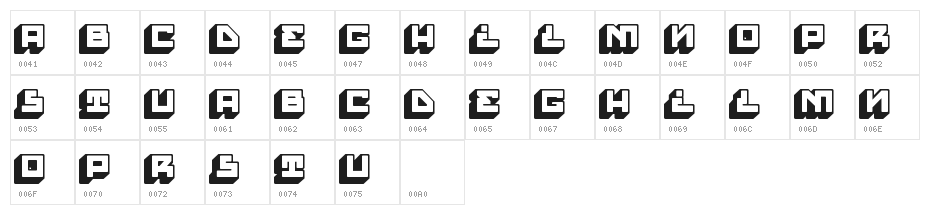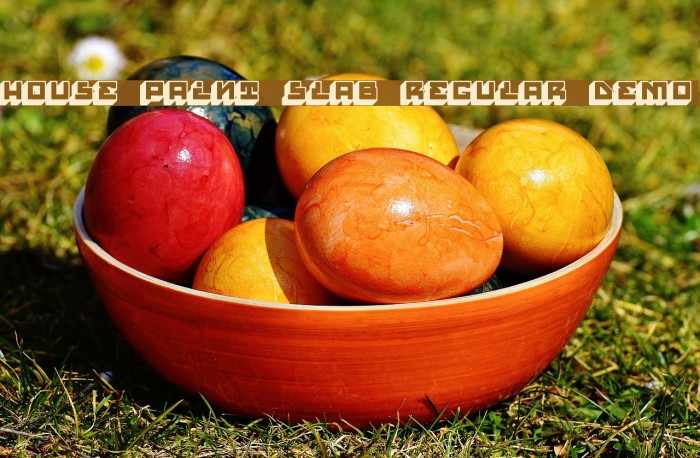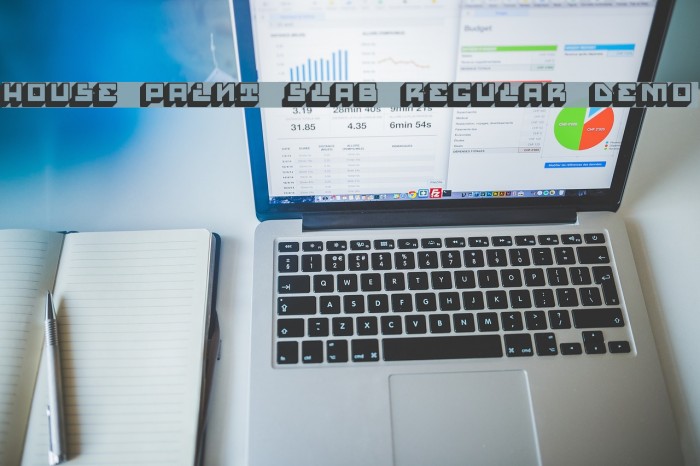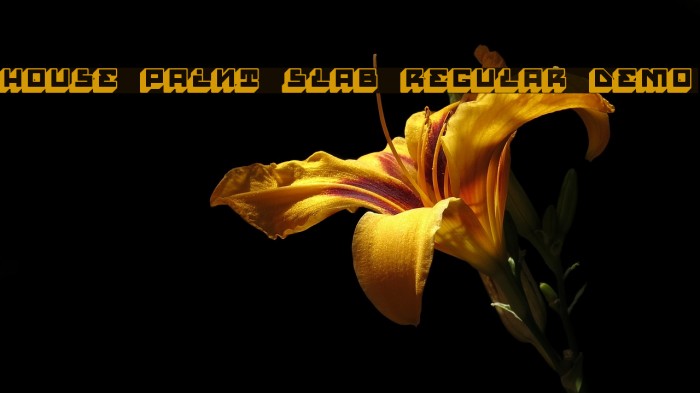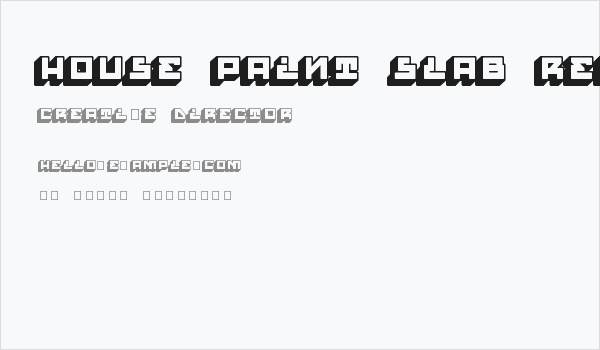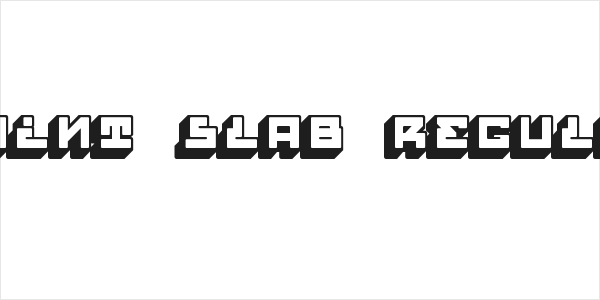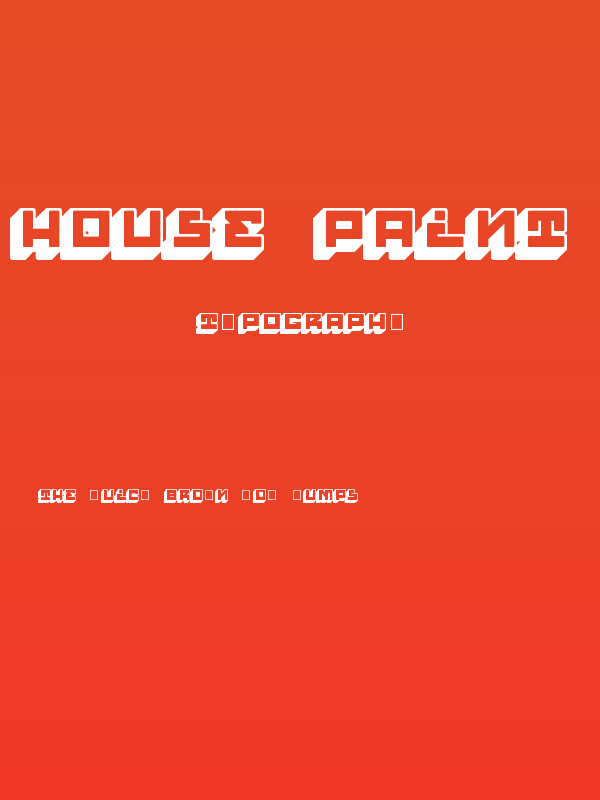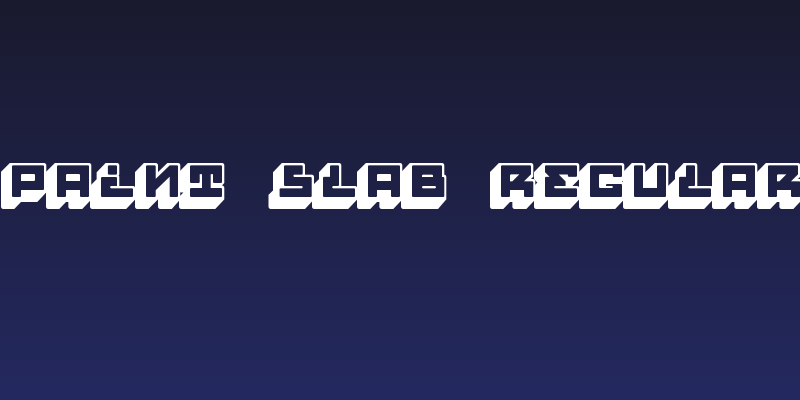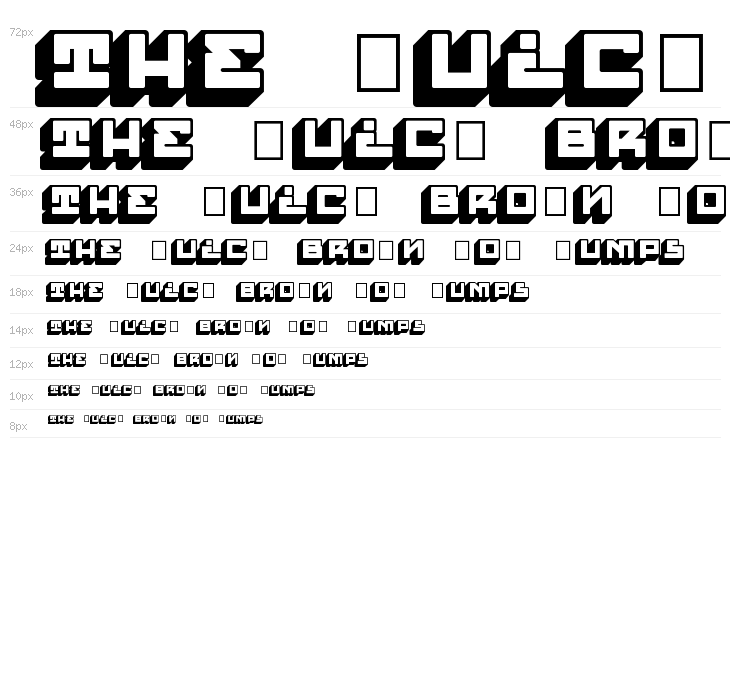
House Paint Slab Regular Demo Font
House Paint Slab Regular Demo Description
This font features a bold, three-dimensional slab serif style with a strong shadow effect, giving it a distinct and eye-catching appearance. The characters are blocky and geometric, with consistent stroke widths that create a uniform look. The shadow adds depth and a sense of movement, making it ideal for impactful designs. The uppercase letters are prominent and assertive, while the absence of lowercase and special characters suggests a focus on simplicity and boldness. This font is perfect for creating a strong visual presence in any design project.
| Proposed Projects | Ideal for posters, headlines, logos, and any design requiring a bold, impactful statement. |